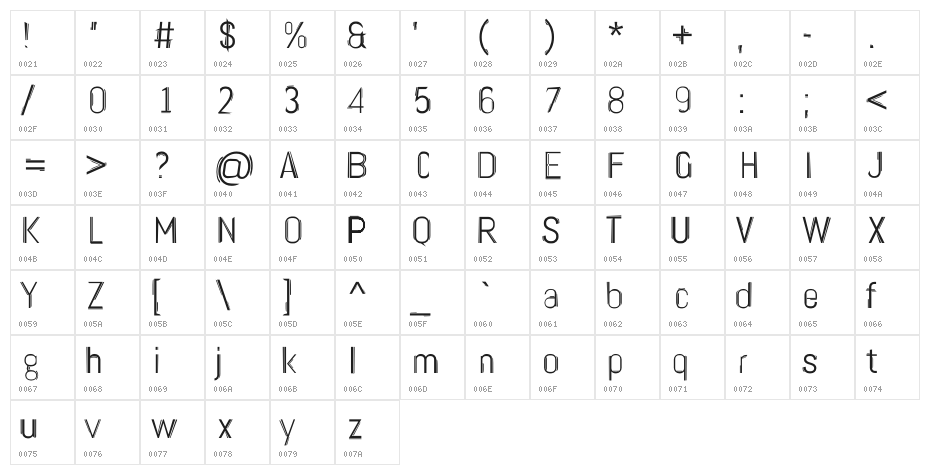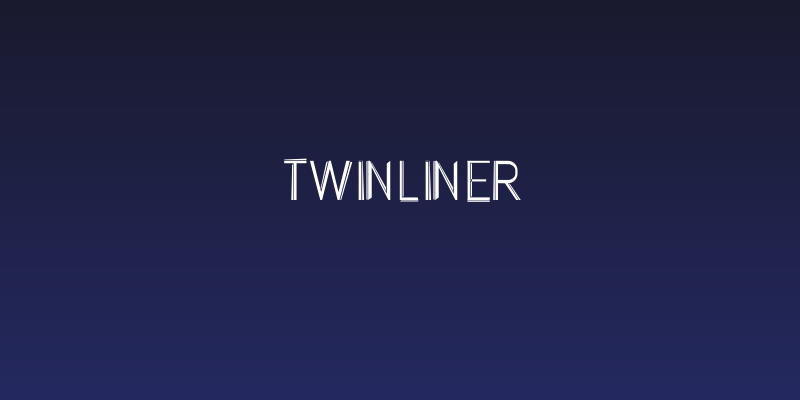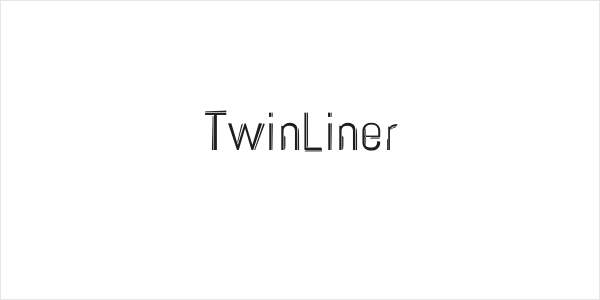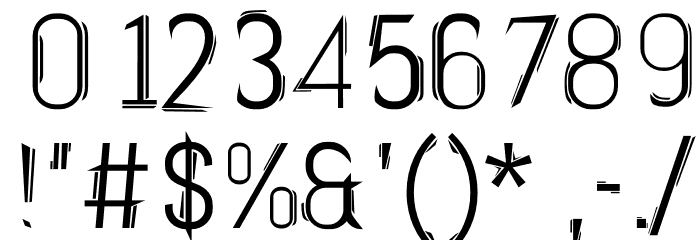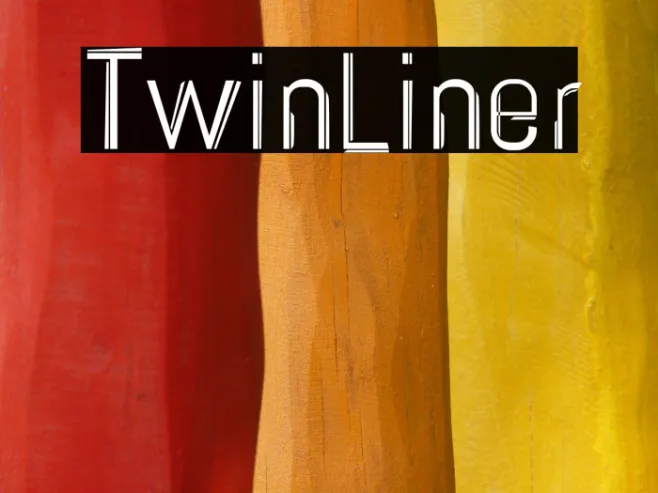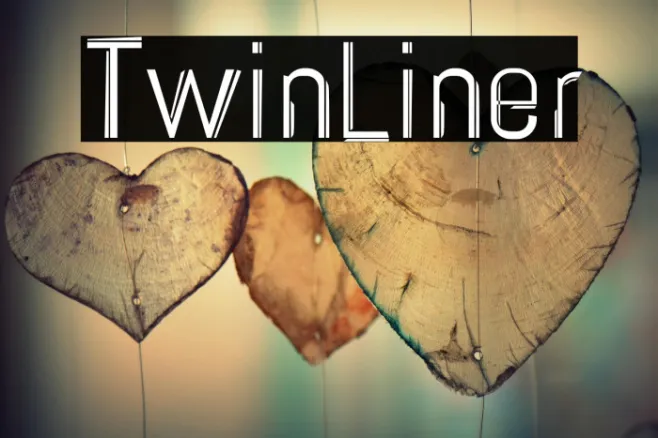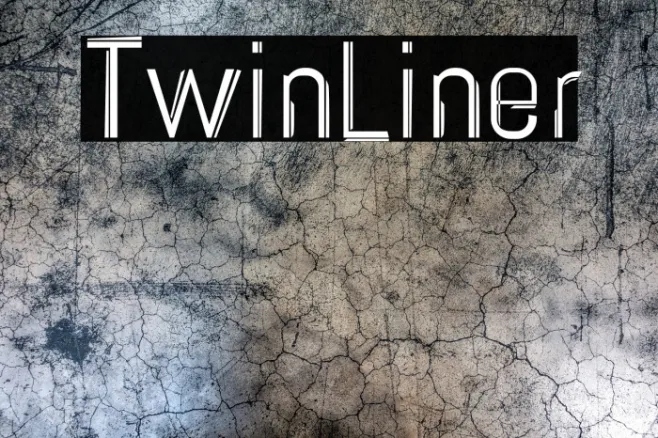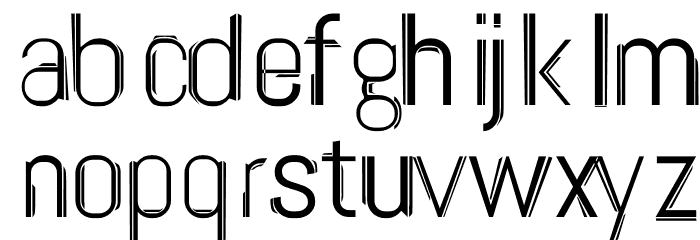
TwinLiner Font
TwinLiner Description
This font features a unique dual-line design that gives each character a distinct, modern appearance. The uppercase and lowercase letters maintain a consistent style, with sharp angles and clean lines that create a sense of movement and energy. The numerals and special characters are designed to complement the alphabet, ensuring a cohesive look across all text. The font's geometric structure and open spacing make it highly legible, while the twin-line effect adds a decorative touch that sets it apart from more traditional typefaces.
Introducing you to a modern typeface that is contained of the double line and single line alphabets. This decorative typeface is named Twin Liner font that comes with excellent sliced double lines and it was created with the aid of Boldfonts that is famou
| Proposed Projects | Ideal for branding, posters, and headlines where a modern and distinctive look is desired. |